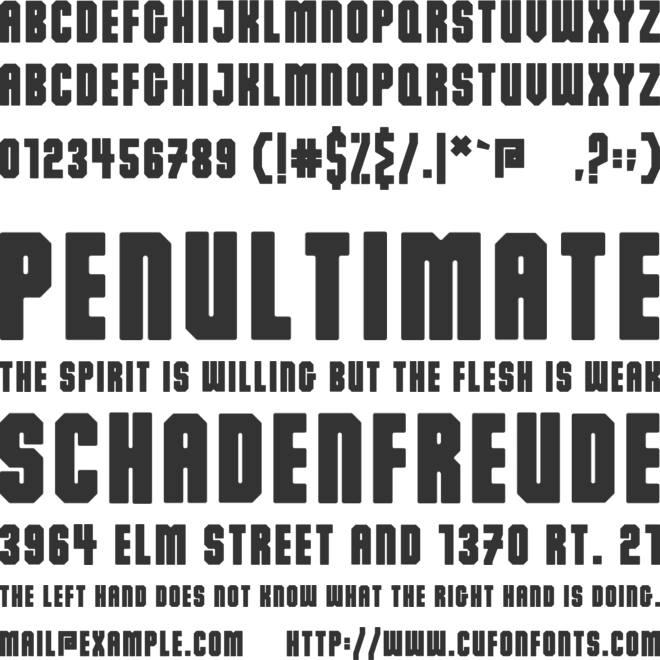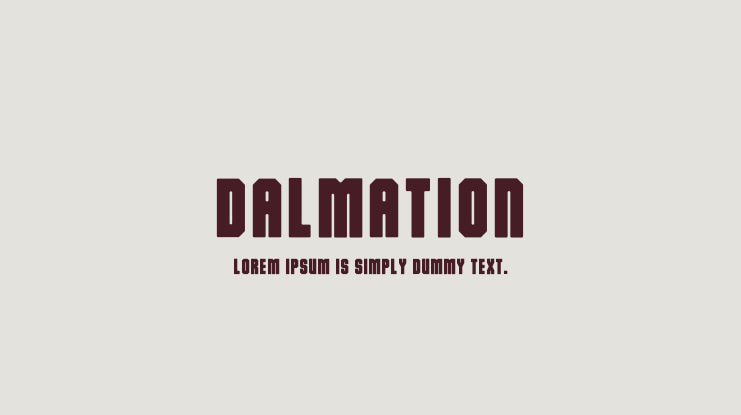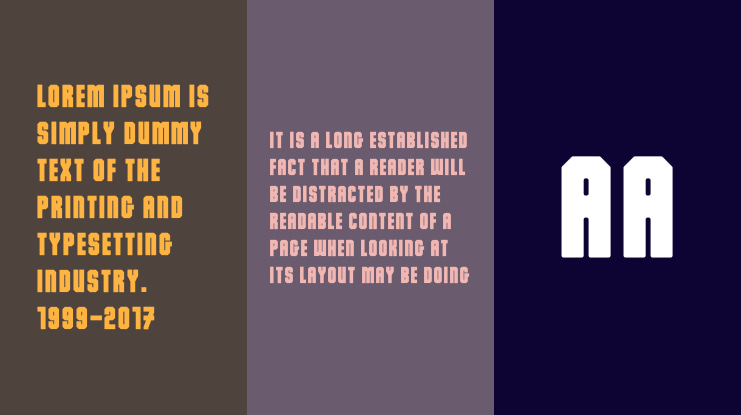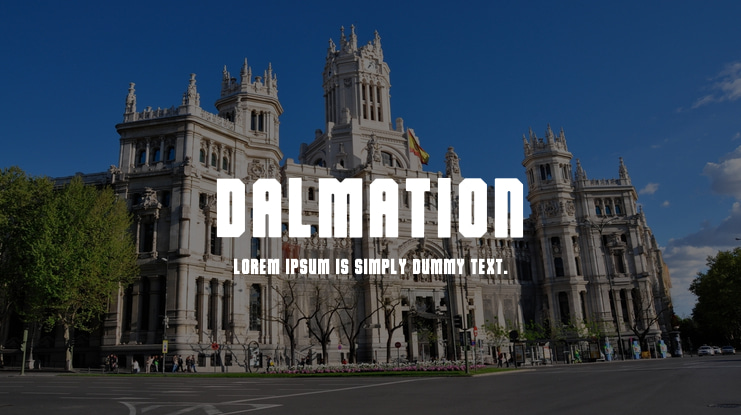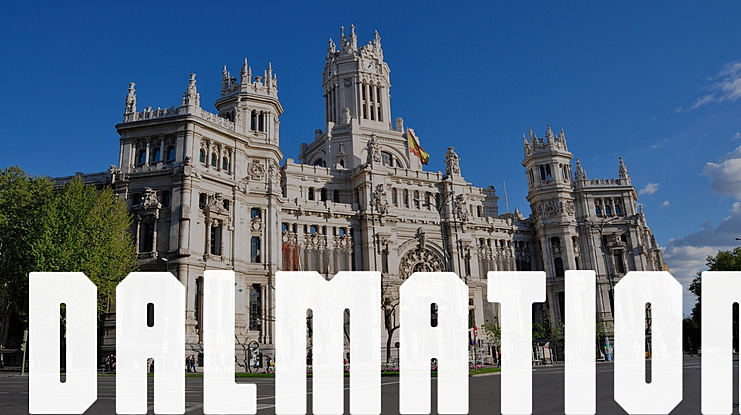
Dalmation Font
The Dalmation Font Collection is a clean and vintage font, to simulate your lovely design. Perfect for many different projects: quotes, blog header, poster, wedding, branding, logo, fashion, apparel, letter, invitation, stationery, etc.
Dalmation font preview